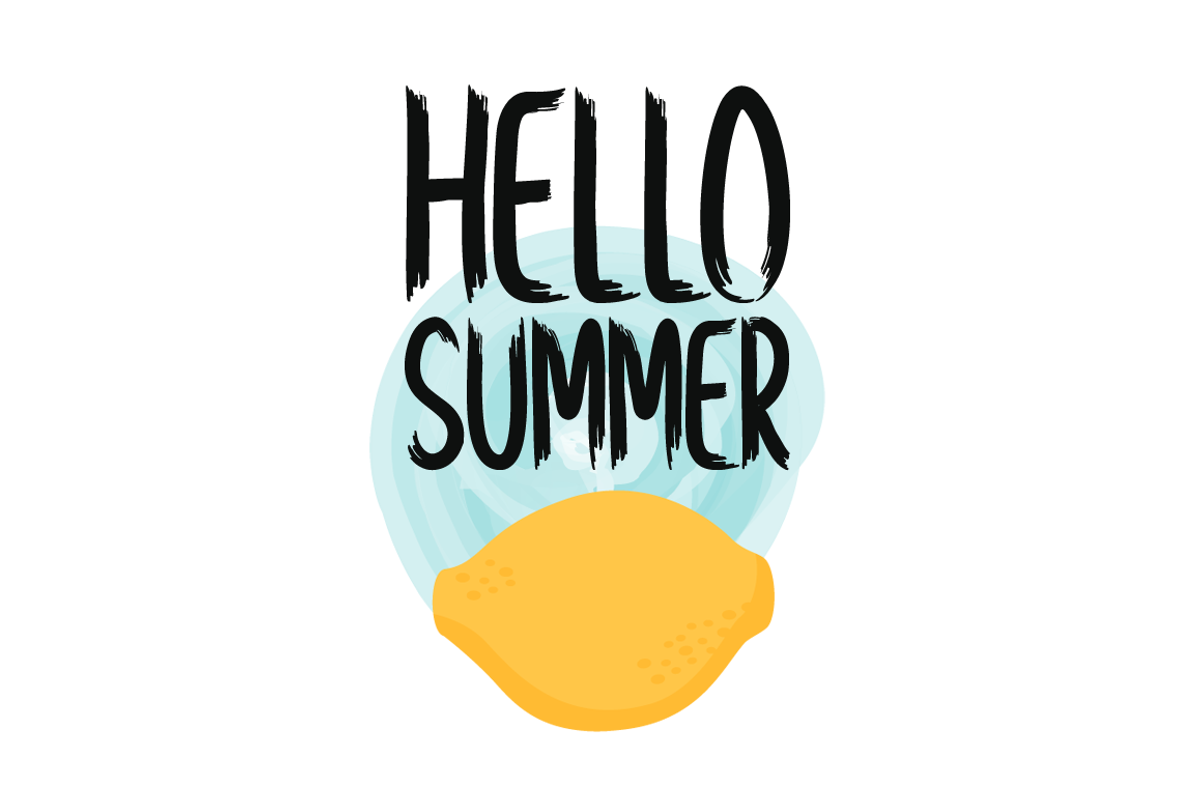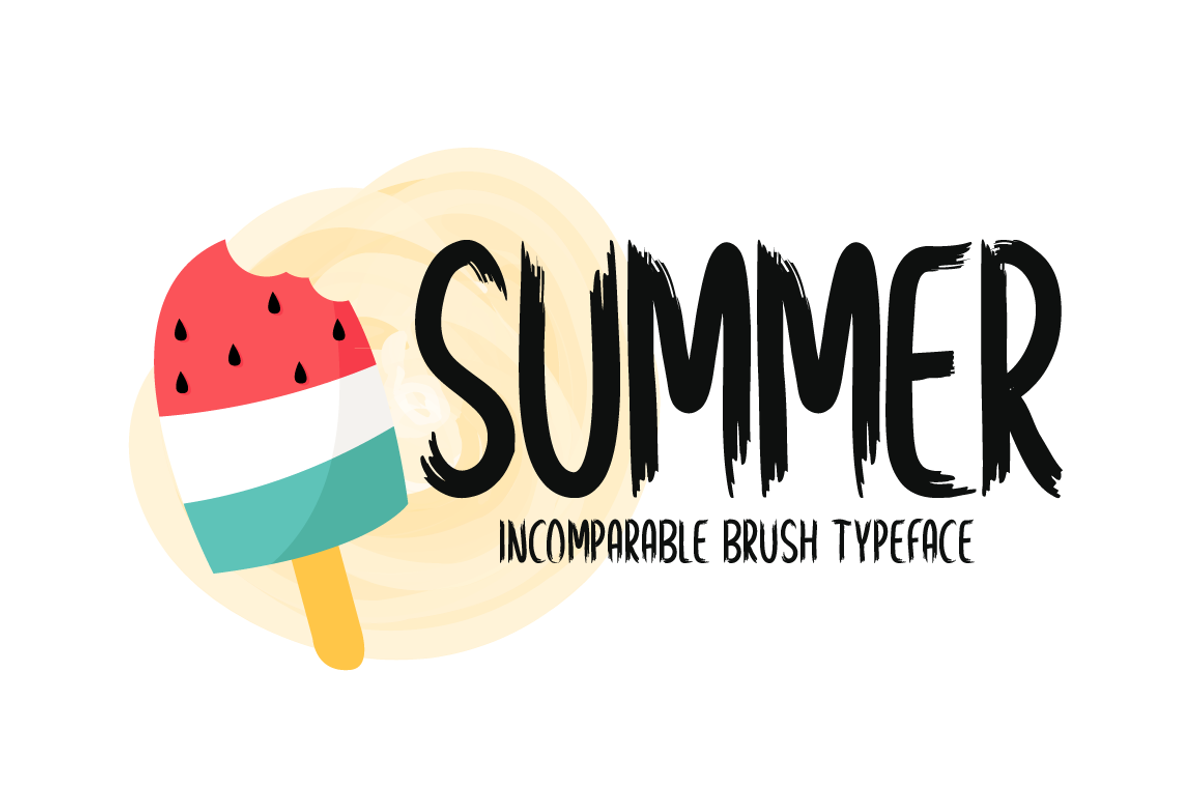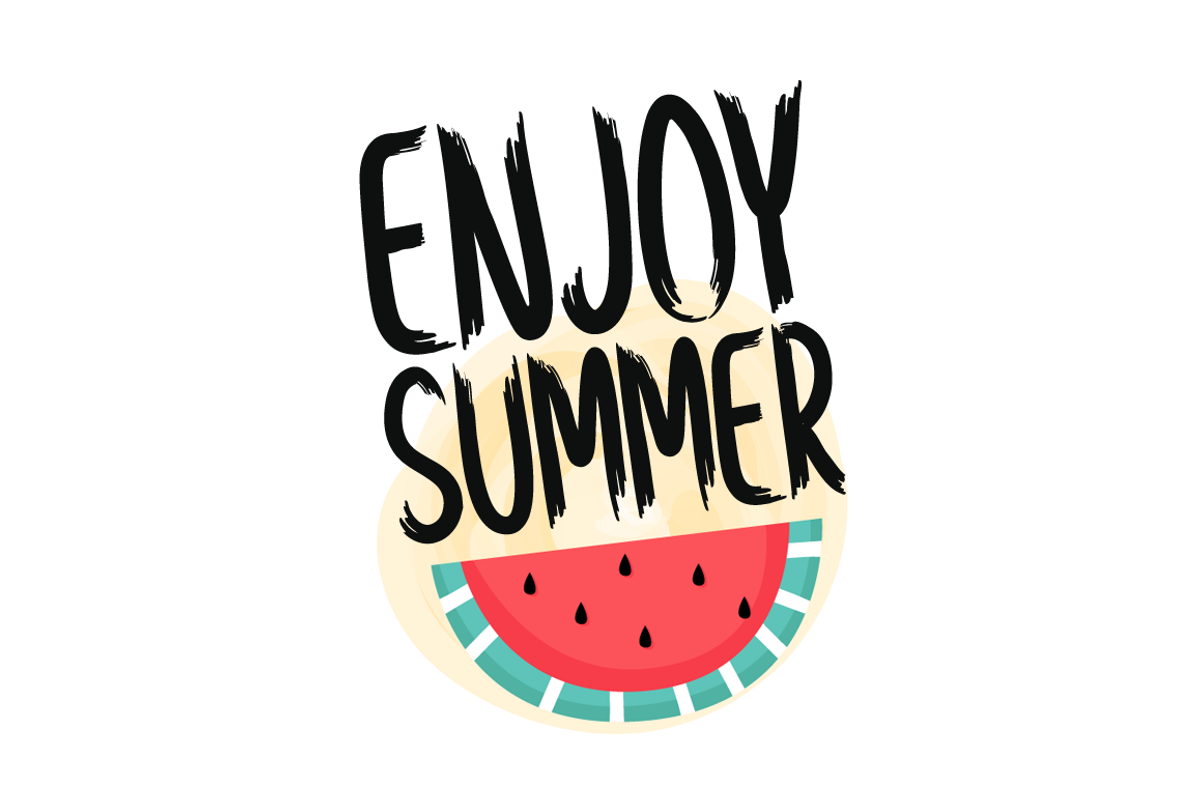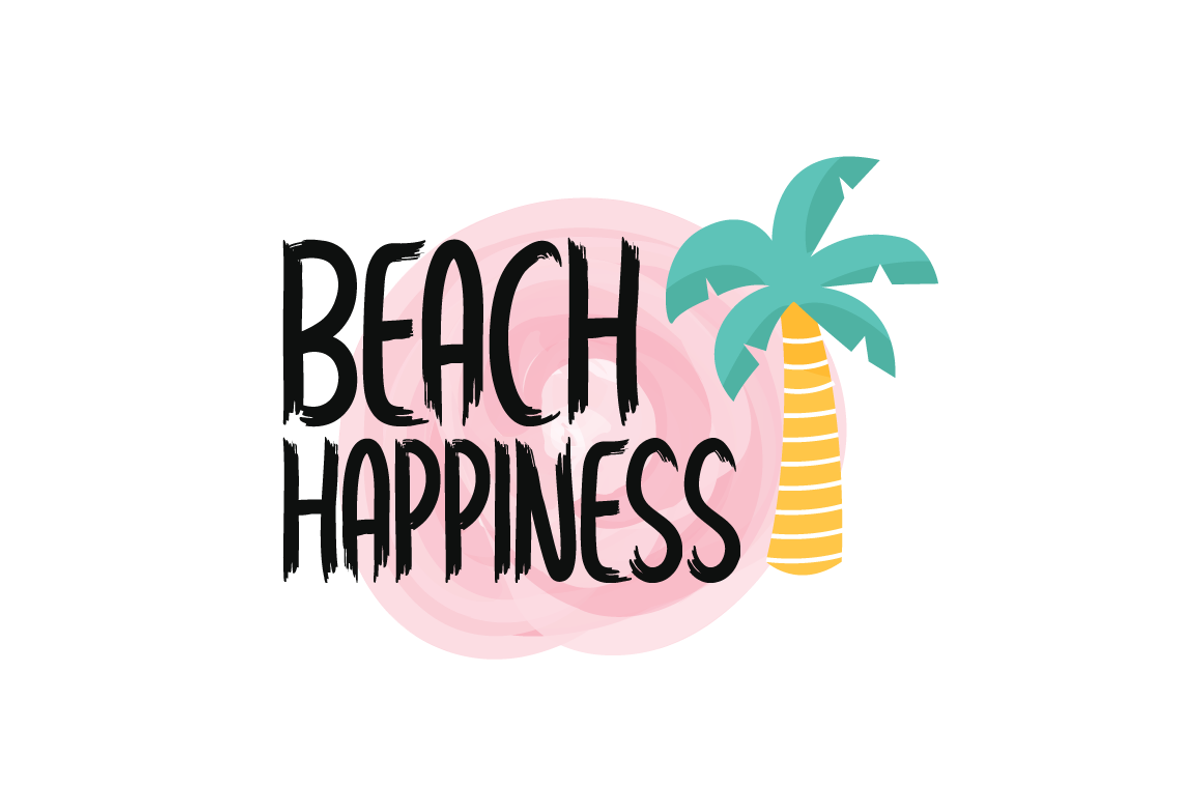
Summer Typeface
Introducing Summer!
Summer is a brand new handwritten font. Summer is perfectly suited for stationery, logos, t-shirt, paper, print design, website header, photo frame, flyer, music cover, poster, image slider, and much more.
Includes a range of multilingual support